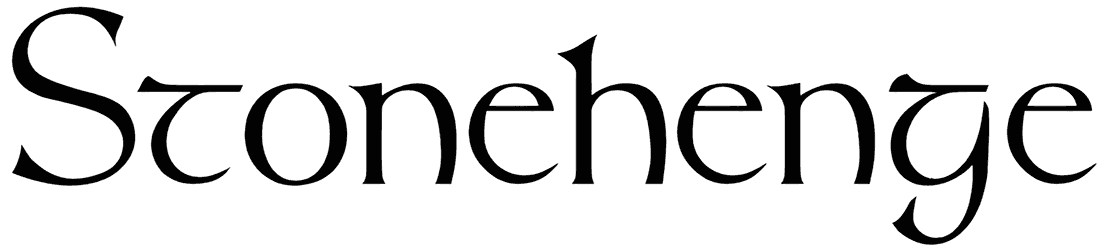
Stonehenge Font
Stonehenge is a gothic font that its letters are rounded and convey a sense of classic, vintage, and variety to the audience, so it can draw their attention to content such as posters, business cards, menus, and wood eng…
Stonehenge is a gothic font that its letters are rounded and convey a sense of classic, vintage, and variety to the audience, so it can draw their attention to content such as posters, business cards, menus, and wood engravings in the shortest time. This Celtic font can be your game-changer in competition with other professional graphic designers.